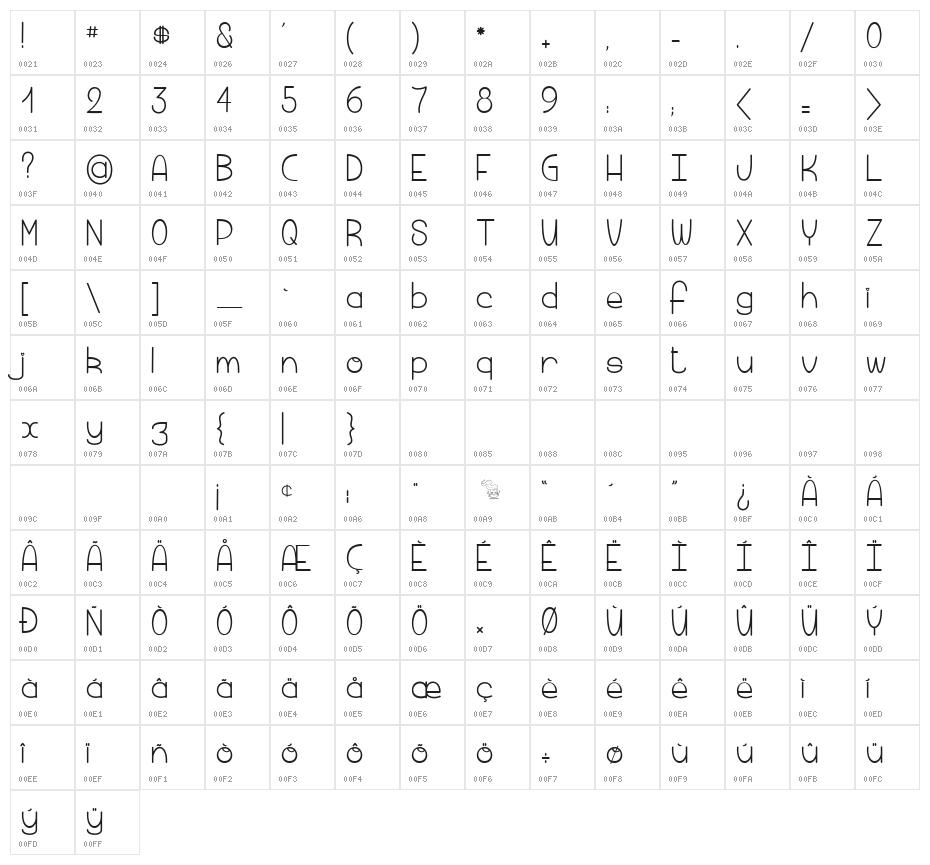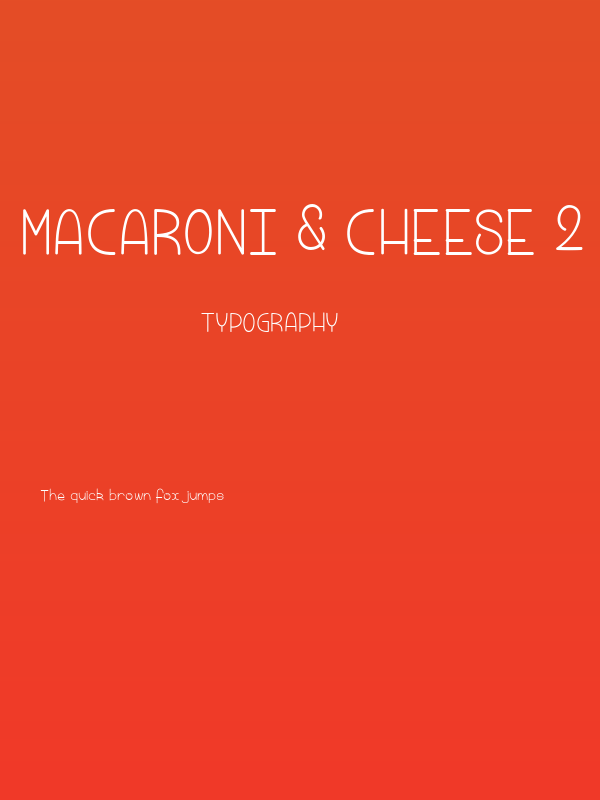
Macaroni & Cheese 2 Font
Macaroni & Cheese 2 Description
This font features a playful and rounded style, characterized by its smooth curves and consistent line thickness. The letters are evenly spaced, creating a harmonious and approachable appearance. The uppercase and lowercase characters maintain a uniform height, contributing to a clean and modern look. The numerals and special characters are designed with the same rounded aesthetic, ensuring visual consistency across all elements. This font's simplicity and readability make it suitable for a variety of design applications.
| Use Case | Headlines, Logos, Casual Text |
| Proposed Projects | Ideal for children's books, playful branding, casual invitations, and educational materials. |